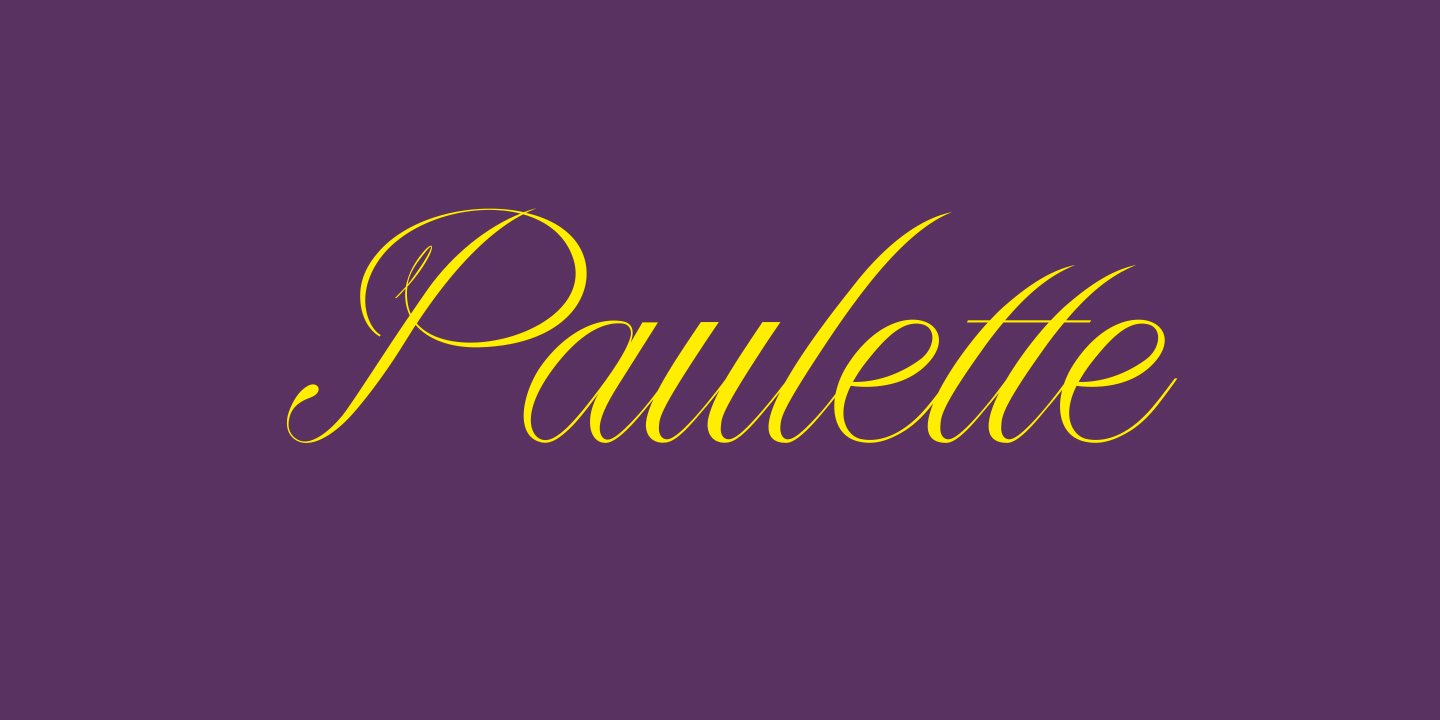
Paulette Font is perfect for wedding invitations, luxury branding, elegant packaging, fashion magazines, greeting cards, and sophisticated editorial designs. Its graceful curves and delicate strokes add a timeless charm.
What makes Paulette Font so exciting is its blend of classic calligraphy with modern flair. The flowing lines create a romantic and refined atmosphere that elevates any project with elegance.
The font family usually includes Regular, Italic, Bold, and sometimes decorative alternates, providing versatility for various design needs.